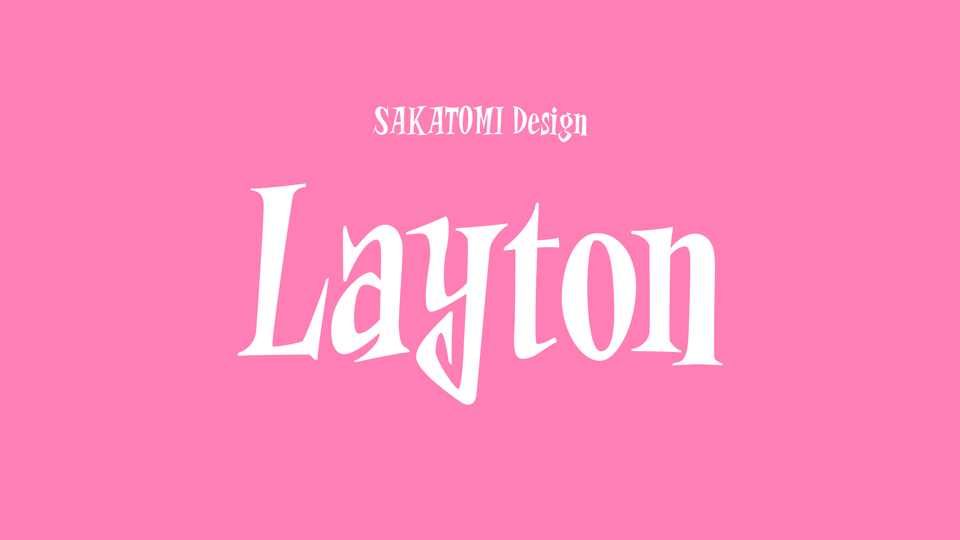
Download Layton font, a spooky fun and playful typeface filled with bounce and liveliness. Layton is perfect to create a festive holiday vibe, ideal for parties and celebrations.